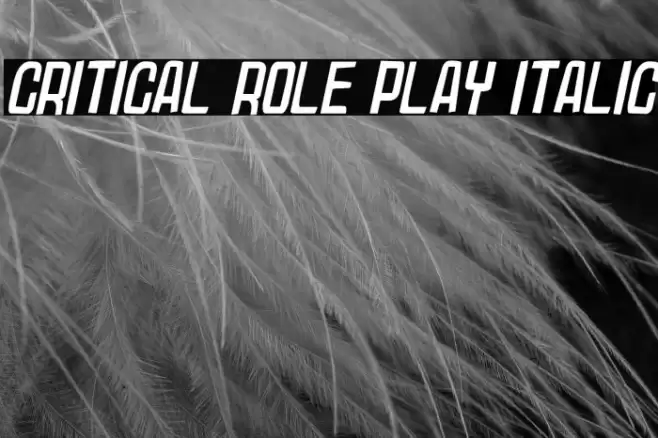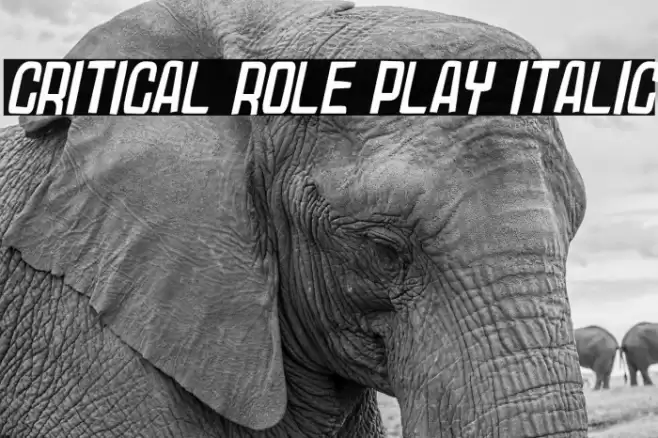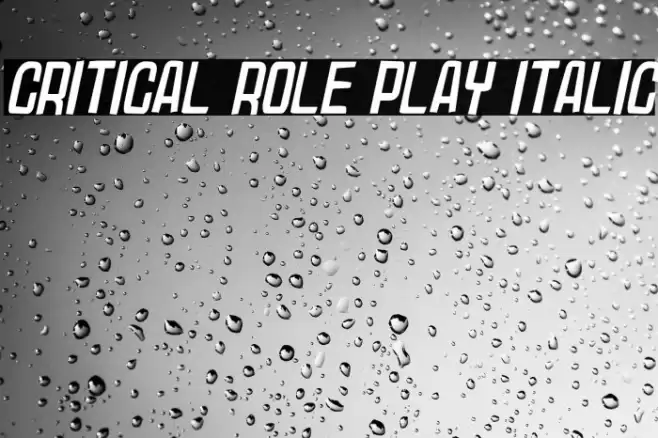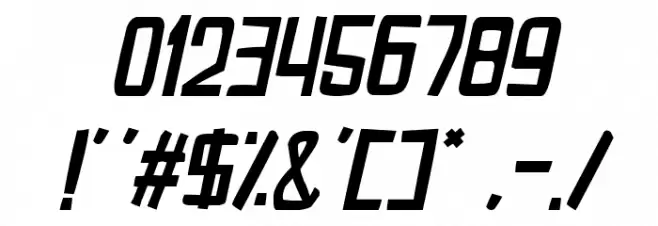
Critical Role Play Italic Font
Critical Role Play Italic Description
This font features a dynamic and modern italic style with a strong forward slant, giving it a sense of motion and energy. The characters are bold and slightly condensed, with consistent stroke thickness that provides a uniform appearance. The uppercase and lowercase letters maintain a cohesive design, with sharp angles and clean lines that enhance readability. The numerals and special characters follow the same stylistic approach, ensuring a harmonious look across all text elements. This font's design is ideal for projects that require a contemporary and energetic feel.
A bold, italic font with a modern, dynamic style and consistent stroke thickness from Cartoon fonts.
- Proposed Projects: Ideal for sports branding, dynamic posters, modern advertising, and energetic logo designs.